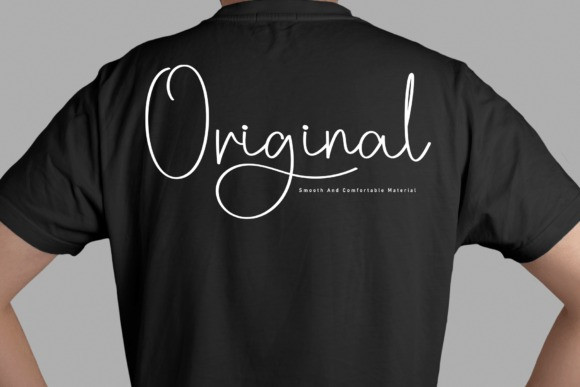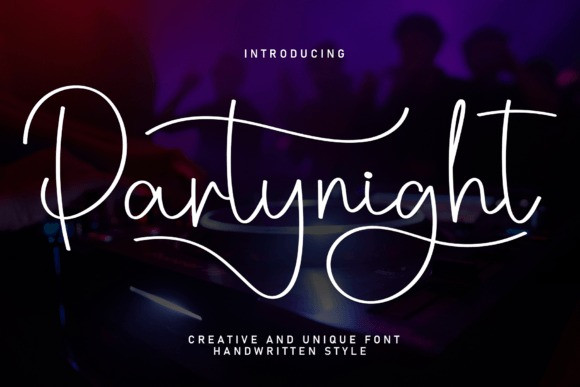
Partynight Handwriting Font
Partynight Handwriting Font is a lovely and timeless handwritten font. It is the best choice for creating eye catching logos, branding and quotes. Every letter has a unique and beautiful touch, which will make your design come alive!